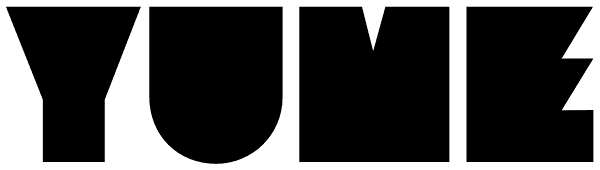
Yume
Yume is a fun loving font with a cruel streak that can sometimes turn laughter into daggers. This wicked personality can lead to some aggressive turns of phrase, but when it’s not being mean, Yume can use its strength and sense of humour to do a lot...